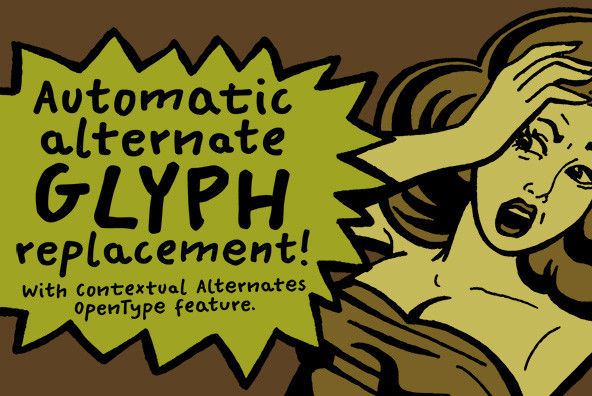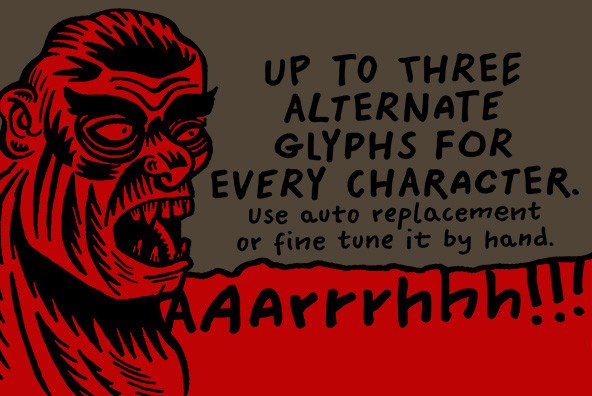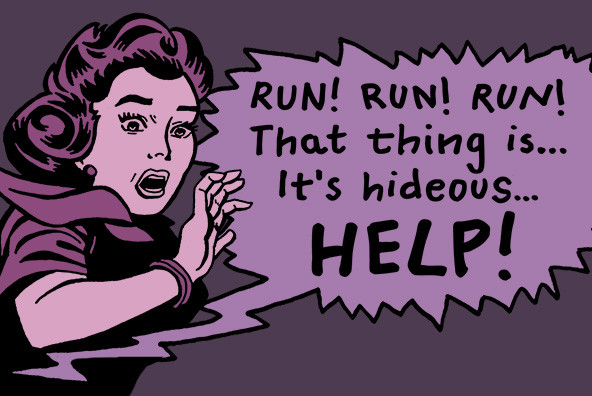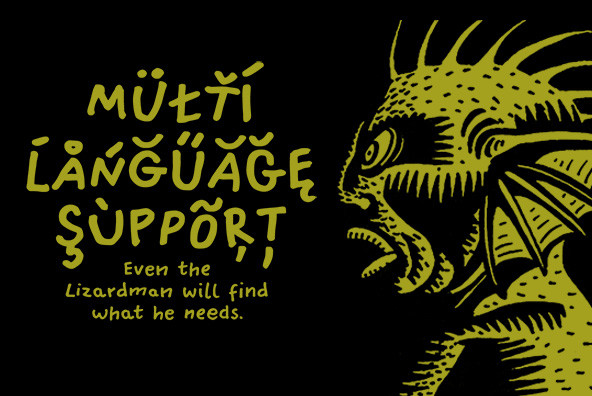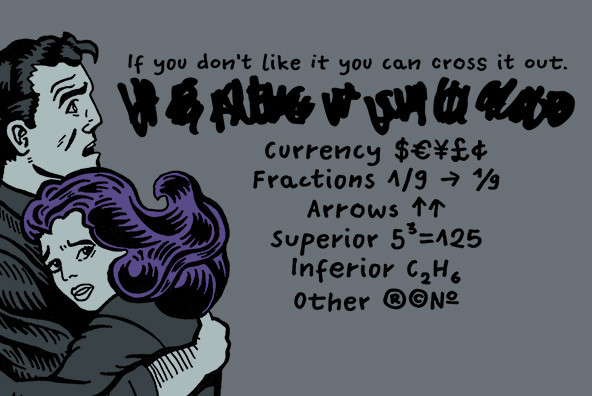
Mr Orange
Mr Orange is a typeface based on our handwritten letters which we used in some of our books H.O.U.S.E, D.E.S.I.G.N and Who Eats Whom.It has up to three alternate glyphs for each character, even for every diacritic letter. We do use our fonts in our books so we know that switching alternate glyphs can be a pain in the ass. Thats why we’ve created a very cool Contextual Alternates feature. It automatically sets alternate glyphs depending on frequency of appearance of the same character. The script doesn’t throw random glyphs. It’s checks if lets say letter “A” appears more then once in a sequence of characters. For example in the word “ANAKONDA”, the third “A” and the second “N” would be changed to glyphs from first stylistic set, the second “A” would also be changed but to glyph from second stylistic set. We’ve designed different rules for basic characters and different for diacritics and punctation. It really works great but of course you can always fine tune it by hand.This option has one obvious advantage for web fonts. Browsers that support OpenType calt feature will be able to display alternate characters. And since you can’t put by hand alternate glyphs on your website this is the only way to use them.